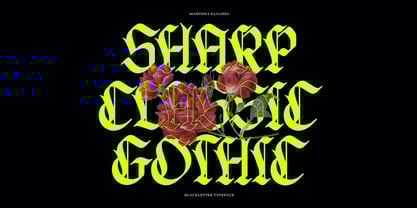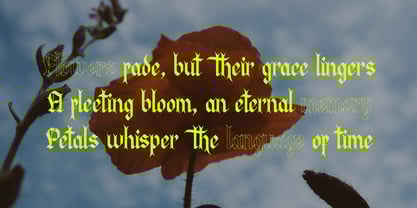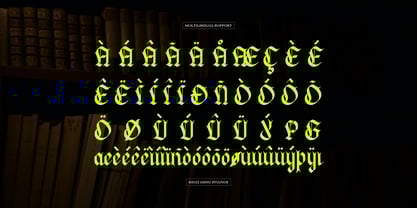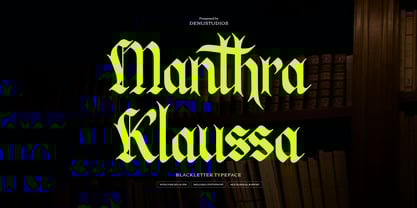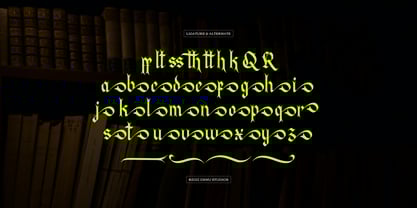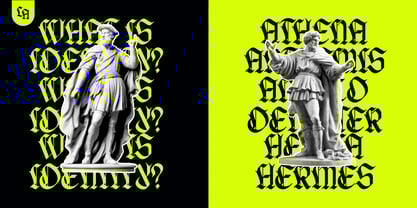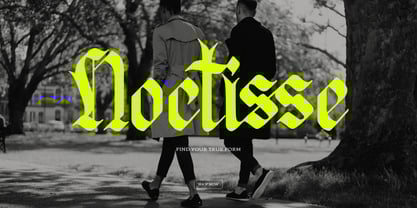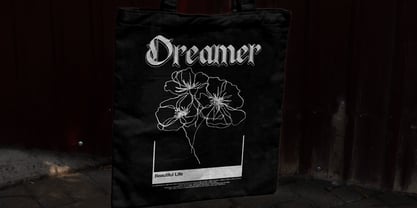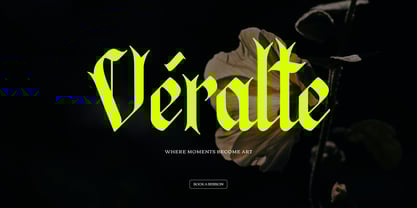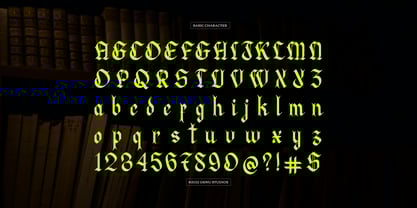
Manthra Klaussa
The Manthra Klaussa Font Family was designed by Dede Nugraha and published by Denustudio. Manthra Klaussa contains 1 styles. More about this family
Manthra Klaussa | Blackletter Typeface, from Denustudios, suitable for any projects such as: logos, branding projects, homeware designs, product packaging, mugs, quotes, posters, shopping bags, t-shirts, book covers, name card, invitation cards, greeting cards, label, photography, watermark, special events, and all your other lovely projects that need Blackletter Typeface a taste.